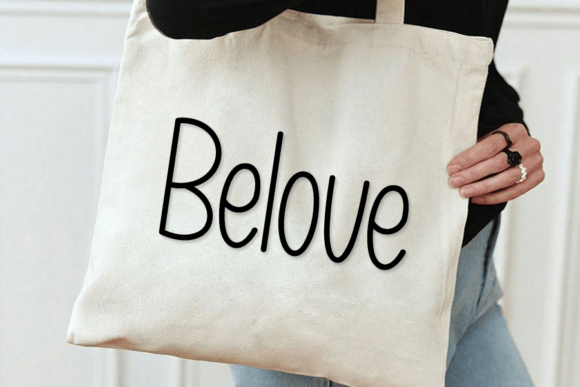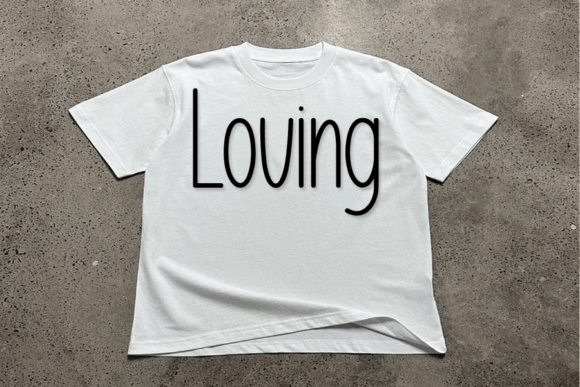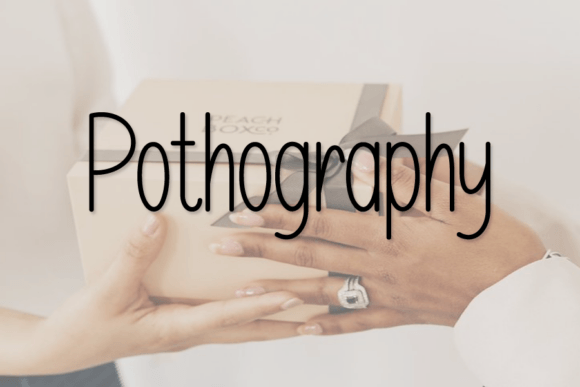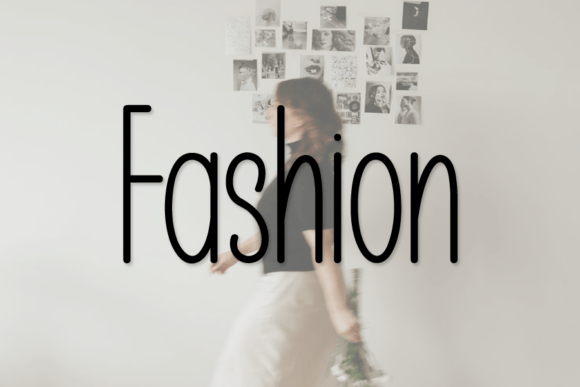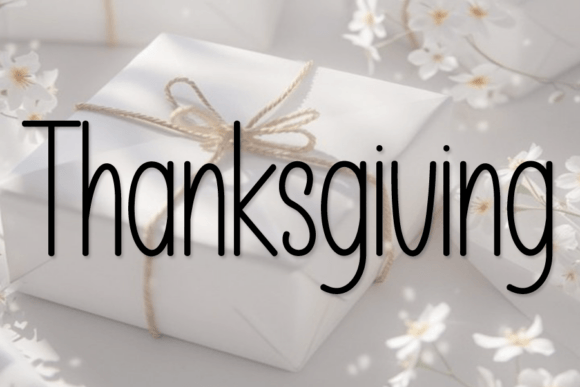
Introduction to Simple Moonlight Font
Have you ever found yourself in the middle of the night, staring at your computer screen, and suddenly a spark of creativity strikes? That’s exactly what happened to many designers who stumbled upon the Simple Moonlight Font, a classic and simple handwritten script that has been a game-changer in the world of design.
The Simple Moonlight Font is a treasure trove of creative possibilities, suitable for logotype, headline font, and even corporate identity. Its free-style design makes it perfect for designers who want to add a personal touch to their projects. With a transparent background and high-quality design, this font is a must-have for any design resource library.
Key Features of Simple Moonlight Font
- High-quality design: This font features a beautiful, elegant design with a transparent background, perfect for adding a touch of sophistication to your project.
- Unique characteristics: The Simple Moonlight Font features a unique blend of modern and classic elements, making it an ideal choice for creative projects that require a touch of whimsy.
- Perfect for creative projects: The Simple Moonlight Font is a versatile design resource that can be used for a wide range of creative projects, from wedding invitations to branding materials.
Honest Review: Simple Moonlight Font
As a designer, I’m always on the lookout for high-quality design resources that can elevate my creative projects. I recently stumbled upon the Simple Moonlight Font, and I must say it’s been a game-changer for me.
- ✨ High-quality font with a beautiful, dreamy feel that’s perfect for designing romantic and whimsical themes.
- ⚠️ Limited font variations – there are only a few styles to choose from, which might not be ideal for designers working on complex projects.
- ⚠️ Not as versatile as some other fonts on the market – it’s primarily suited for romantic and whimsical themes, which might limit its use in other design contexts.
Overall, I’m thoroughly impressed with the Simple Moonlight Font. Its high-quality design and transparent background make it an excellent addition to any design resource library. While it may have some limitations, it’s a great choice for designers working on romantic and whimsical projects.